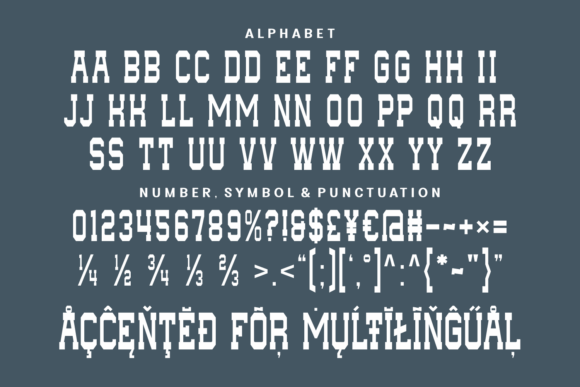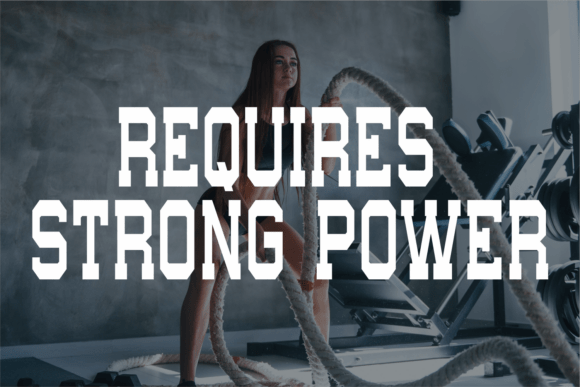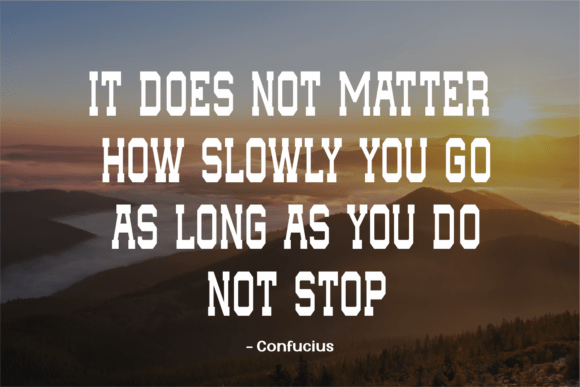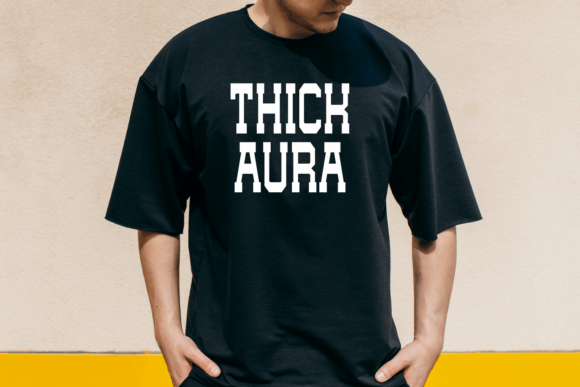
Unleash Bold Authority with Action Cowboy Fonts: The Ultimate Slab Serif Choice
In the realm of typography, few fonts command attention and exude strength like the Action Cowboy Fonts. This robust Slab Serif font is meticulously designed for headlines that demand bold authority, making it an ideal choice for designers and crafters seeking to make a lasting impact. With its geometric precision and industrial resilience, Action Cowboy Fonts are poised to elevate your creative endeavors to new heights.
Geometric Precision Meets Industrial Resilience
Action Cowboy Fonts are crafted with a keen eye for detail, boasting a geometric design that lends itself to a sturdy, industrial aesthetic. This font family is not just about looks; it’s about making a statement. The industrial resilience of these fonts ensures that they can withstand the demands of various design applications, from dynamic sports branding to powerful logotypes.
The Essence of Masculinity and Determination
There’s an undeniable masculine aura to Action Cowboy Fonts, making them particularly suited for projects that require a strong, athletic presence. The font’s design embodies the spirit of determination, perfect for brands and designs that aim to inspire and motivate. Whether you’re working on a sports-related project or a campaign that needs to convey resilience and strength, Action Cowboy Fonts are up to the task.
Fashioned for Athletic Block Lettering and Condensed Slab Typography
Action Cowboy Fonts are specifically designed with athletic block lettering and condensed slab typography in mind. This focus allows for a level of versatility that’s hard to find in other font families. Designers can use these fonts to create impactful, block-style lettering that’s perfect for headlines, titles, and short phrases. The condensed nature of the font also makes it ideal for designs where space is at a premium, without sacrificing readability or impact.
Ideal for Dynamic Sports Branding and Powerful Logotypes
The dynamic nature of Action Cowboy Fonts makes them a prime choice for sports branding. These fonts can help create a strong, competitive edge for any sports-related brand, conveying a sense of energy and determination. Additionally, their powerful appearance makes them suitable for logotypes that need to stand out and make a lasting impression. Whether it’s for a sports apparel brand, a fitness center, or any business looking to project strength and resilience, Action Cowboy Fonts are an excellent option.
Captivating Attention and Conveying Strength
In today’s crowded design landscape, capturing attention is more challenging than ever. Action Cowboy Fonts offer a solution with their unforgettable boldness. By incorporating these fonts into your designs, you’re ensuring that your message is delivered with impact and authority. The strength of these fonts lies not just in their aesthetic but in their ability to convey a message of resilience and determination.
Embracing the Force of Typography
Typography is more than just a visual element; it’s a powerful tool for communication. With Action Cowboy Fonts, designers and crafters can tap into the force of typography to add character and depth to their creative projects. These fonts command respect, not just through their bold appearance but through the statement they make. They are a testament to the power of well-designed typography in elevating a brand or design.
Author Ade (7NTypes)
Action Cowboy Fonts represent a significant addition to the world of typography, offering a unique blend of geometric precision, industrial resilience, and masculine authority. Whether you’re a designer looking to create dynamic sports branding, a crafter working on a powerful logotype, or simply someone who appreciates the strength of well-designed typography, Action Cowboy Fonts are an excellent choice. With their bold appearance and impactful presence, these fonts are poised to make a lasting impression on any project they’re a part of.